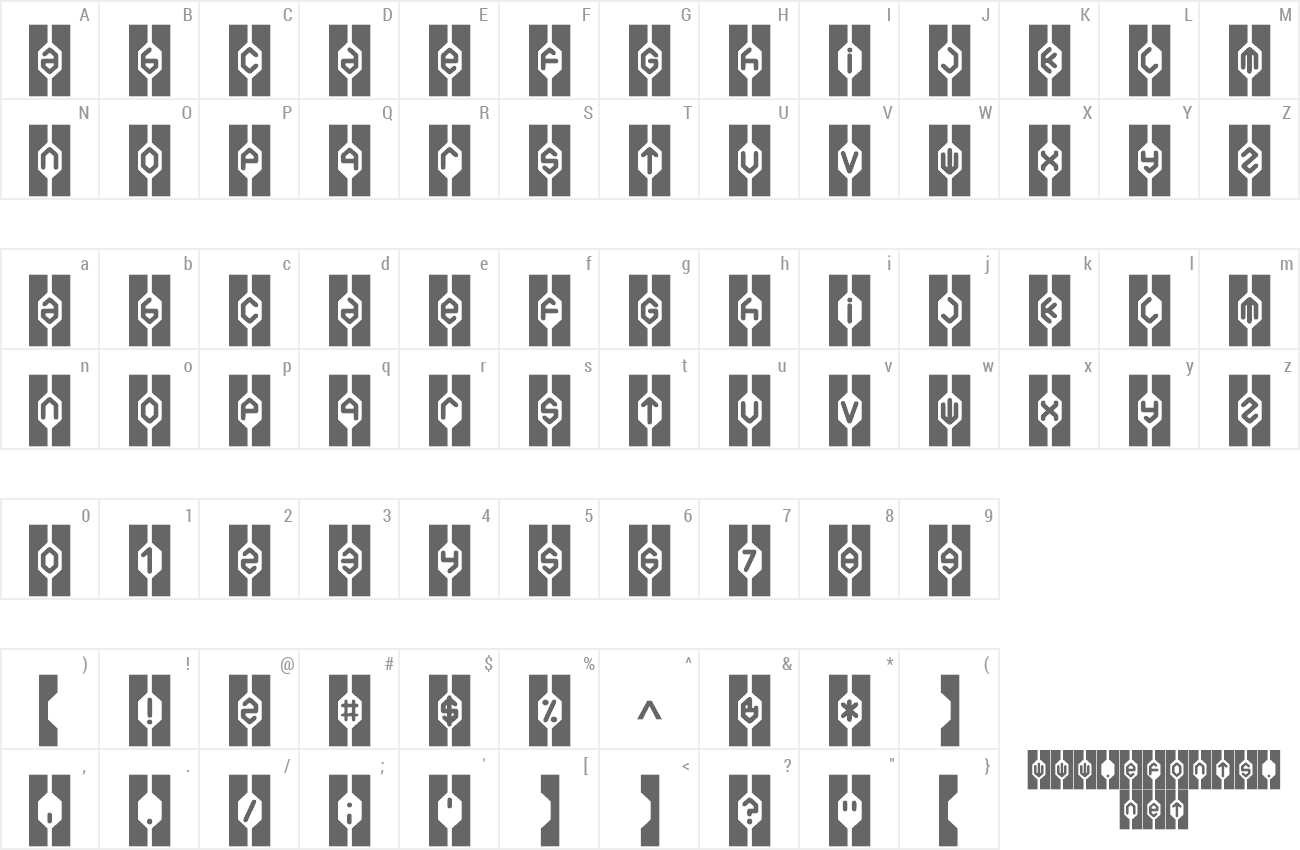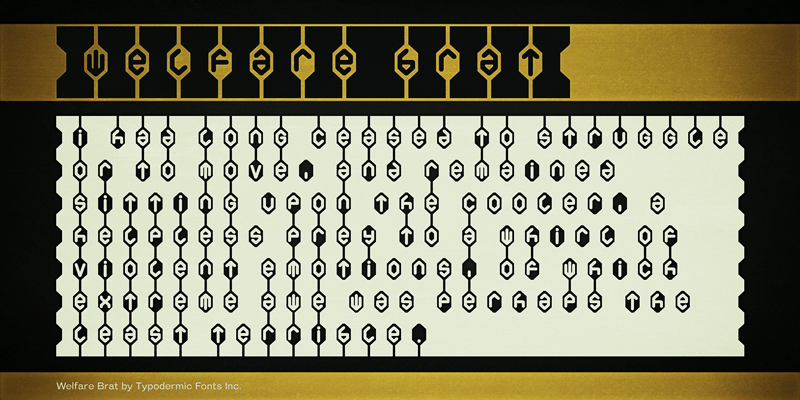
Preview and download Welfare Brat Font. Created by Typodermic Fonts in Techno Various styles with 100% Free license.
Welfare Brat was designed to make the reader think about bulldozers and hamburgers. This font includes a license that allows free commercial use: sometimes referred to as a desktop license. This allows you to install the font on a computer and use it to create posters, web graphics, game graphics, t-shirts, videos, signs, logos and more. Read the license agreement for details. If you'd like to embed this font in an app, ebook, on the web or anything that's not covered by the desktop license agreement, visit the link below. You'll find distributors who offer different types of licenses or you can contact me for help. http://typodermicfonts.com/welfare-brat/ |